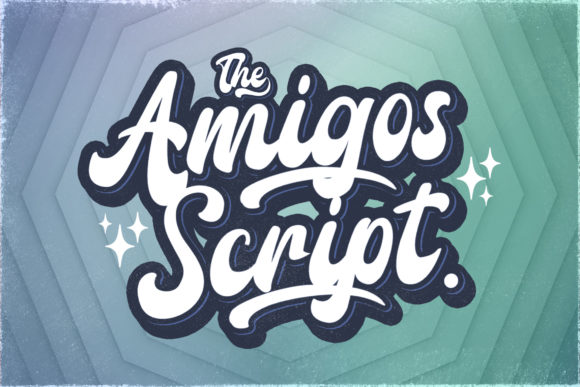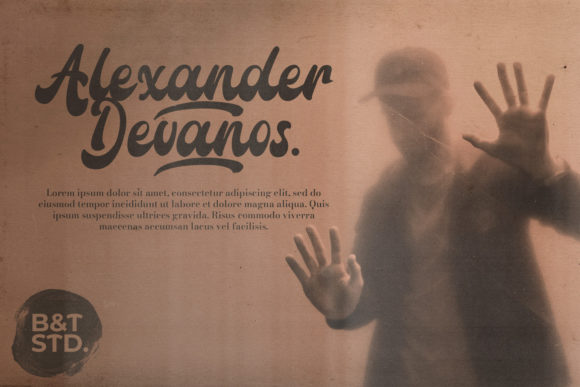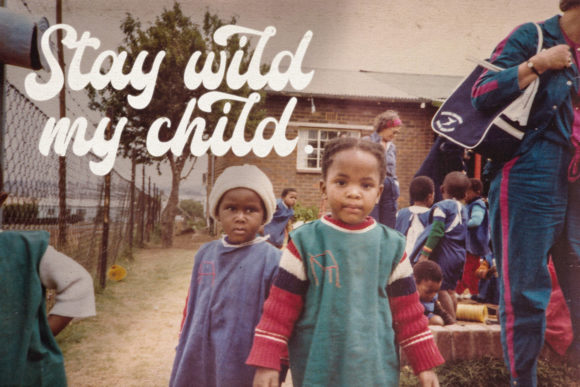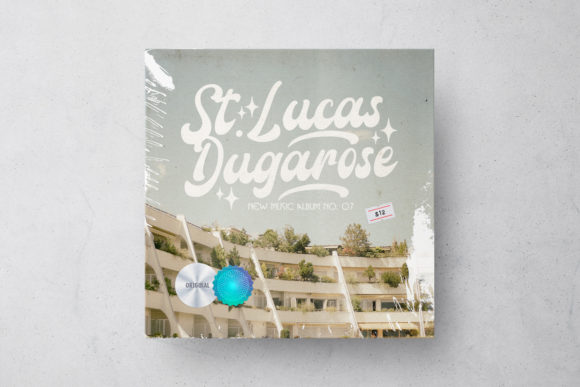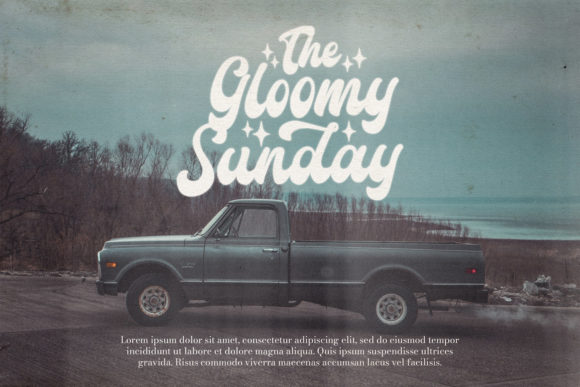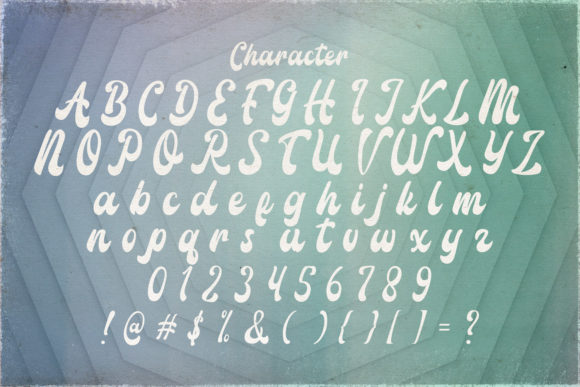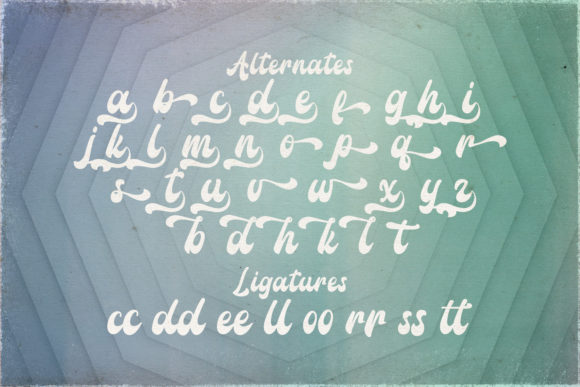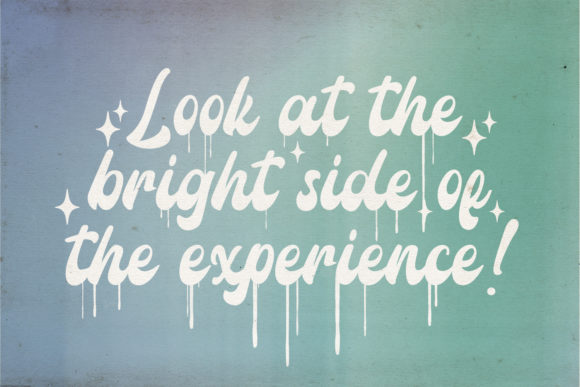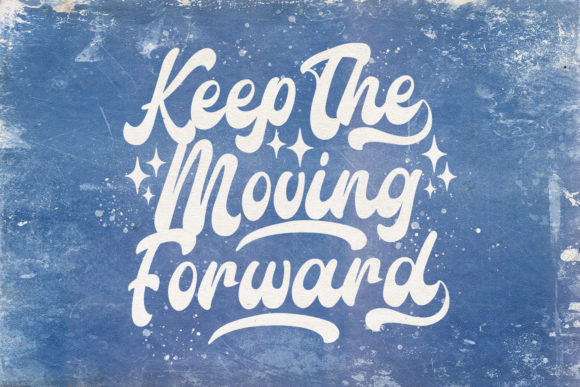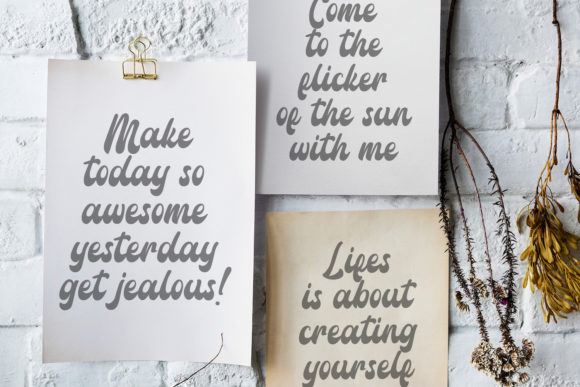
Amigos Font
About Amigos Font
Amigos is a strong and bold script font. It is curved, rounded, and has an unique vintage style, that is perfect for branding. Add it to your most creative ideas and notice how it makes them come alive!